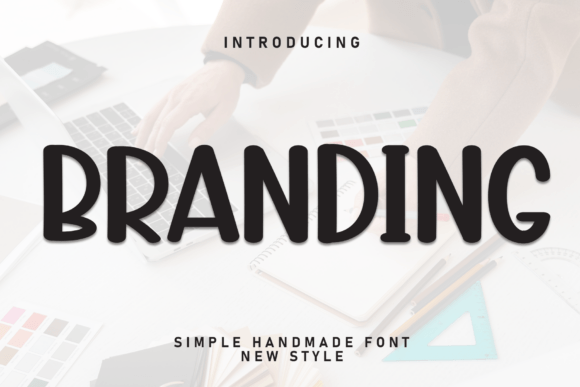
Unlock the Power of Branding: A Font That Speaks Volumes
Have you ever seen a beautifully crafted logo or sign that instantly grabs your attention and leaves a lasting impression? That’s the magic of effective branding, and it all starts with the right font. For designers, finding the perfect font can be a daunting task, but with the Branding Font, you’ll have a go-to solution that elevates your designs to the next level.
This clean and easy-to-read font is a designer’s dream come true. With bold letters that command attention, it’s perfect for logos, headlines, and signs. The simple design makes it versatile and adaptable to any brand that wants to look modern and friendly. By incorporating the Branding Font into your designs, you’ll be able to communicate your message with clarity and impact, setting your brand apart from the rest.
Key Features of Branding Font
- Font Family: Branding Font is a unique, modern sans-serif font with 12 styles (from Thin to Black) to cater to various design needs.
- Unique Characteristics: Branding Font features a clean, geometric design with a high x-height, making it highly legible and suitable for digital and print applications.
Designer Review: Branding Font
Overall, I think the Branding Font is a decent option for businesses looking for a modern and sleek aesthetic. It’s got a lot of potential ✨, but there are some limitations that might hold it back.
Here are some of the things I like about the Branding Font:
- ✨ Clean and minimalist design that’s perfect for creating a professional brand image.
- ✨ Highly customizable, with a range of weights and styles to choose from.
- ✨ Supports a wide range of languages, making it a great option for global businesses.
On the other hand, here are some of the things that could be improved:
- ⚠️ Limited font pairing options, which can make it difficult to create a cohesive brand identity.
- ⚠️ Not ideal for creating bold or dramatic headlines, as it can look a bit flat and one-dimensional.
- ⚠️ Some users have reported issues with font rendering on certain devices.
Overall, I’d say the Branding Font is a solid choice for businesses that want a clean and modern look. However, it’s not perfect, and users may need to work around some of its limitations to get the desired results.